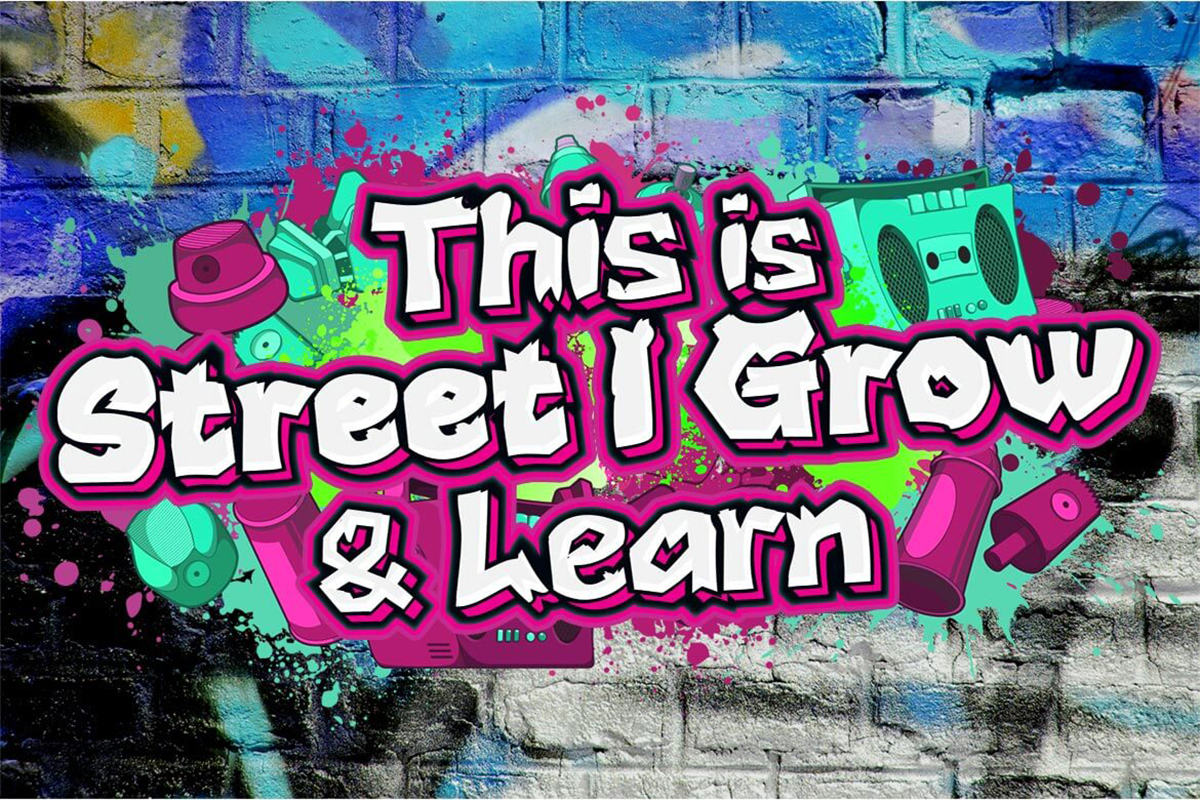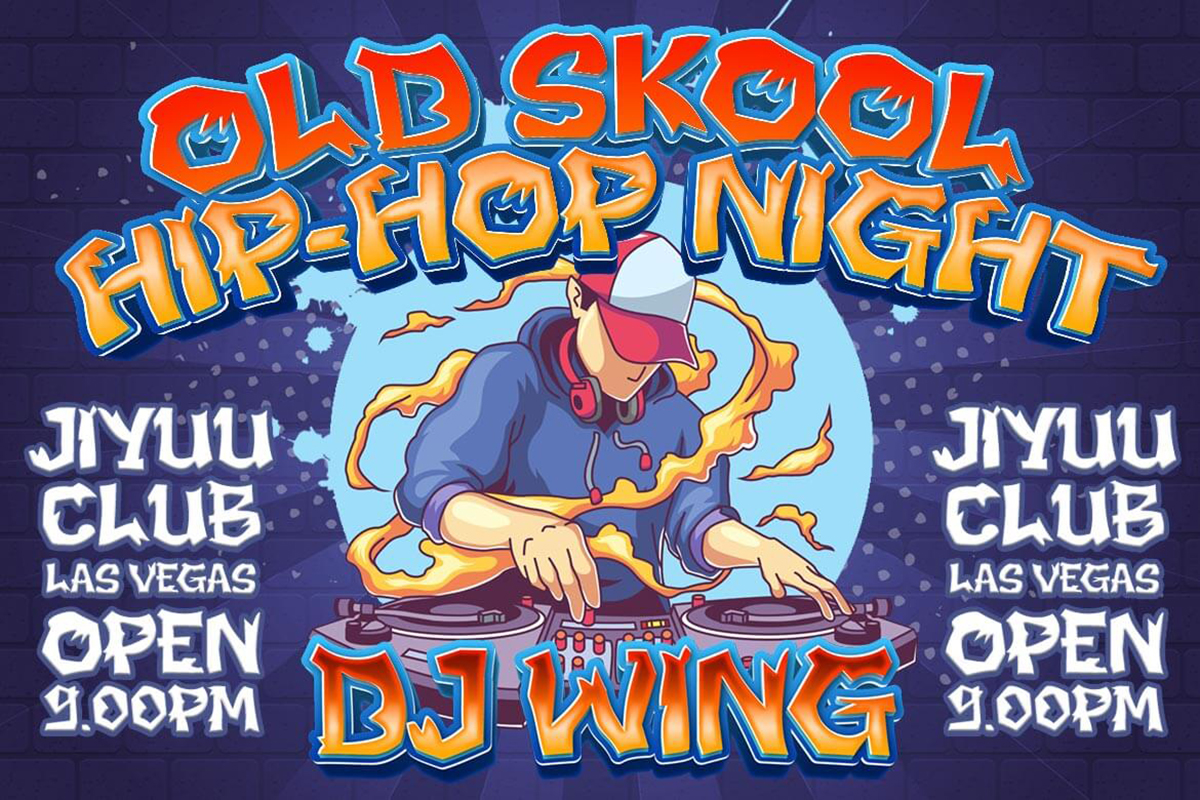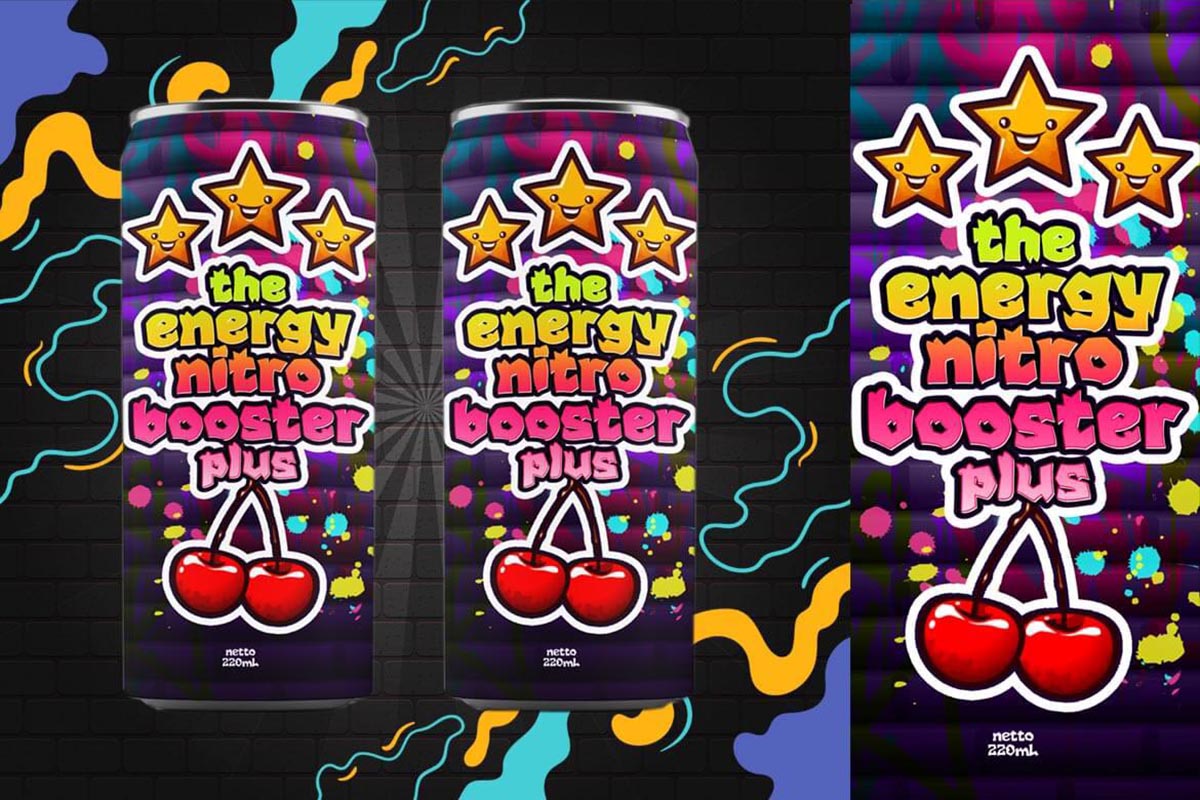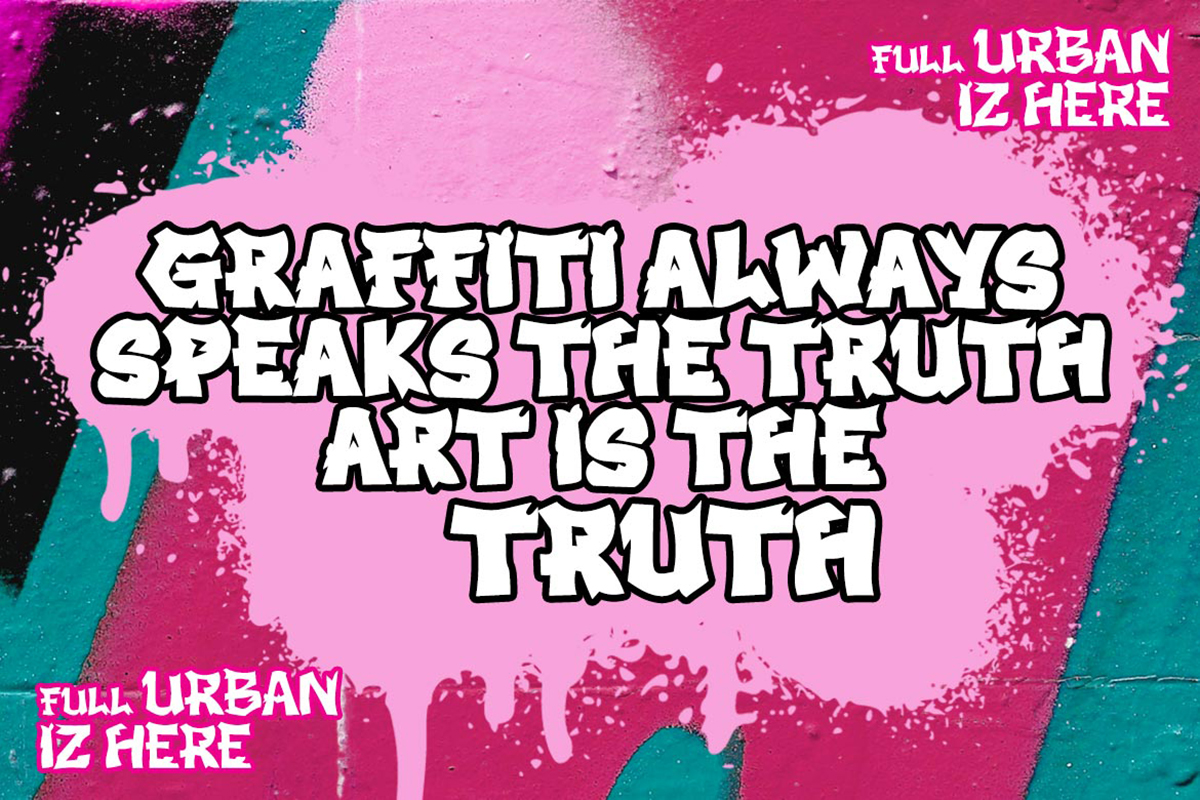
Bekorg Free Font
Introducing Bekorg, an unconventional and uniquely shaped graffiti-themed font. This distinct graffiti font is an excellent choice for product logos, poster titles, headlines, packaging, film titles, logotypes, stylish writing, and contemporary graffiti designs. Incorporate this typeface promptly to infuse your projects with an avant-garde and remarkable aesthetic. Unleash the eccentricity of Bekorg to make your creative endeavors truly one-of-a-kind and memorable. This free typeface was designed by a talentedΒ Twin Letter. If you like it don’t forget to check out the full version.